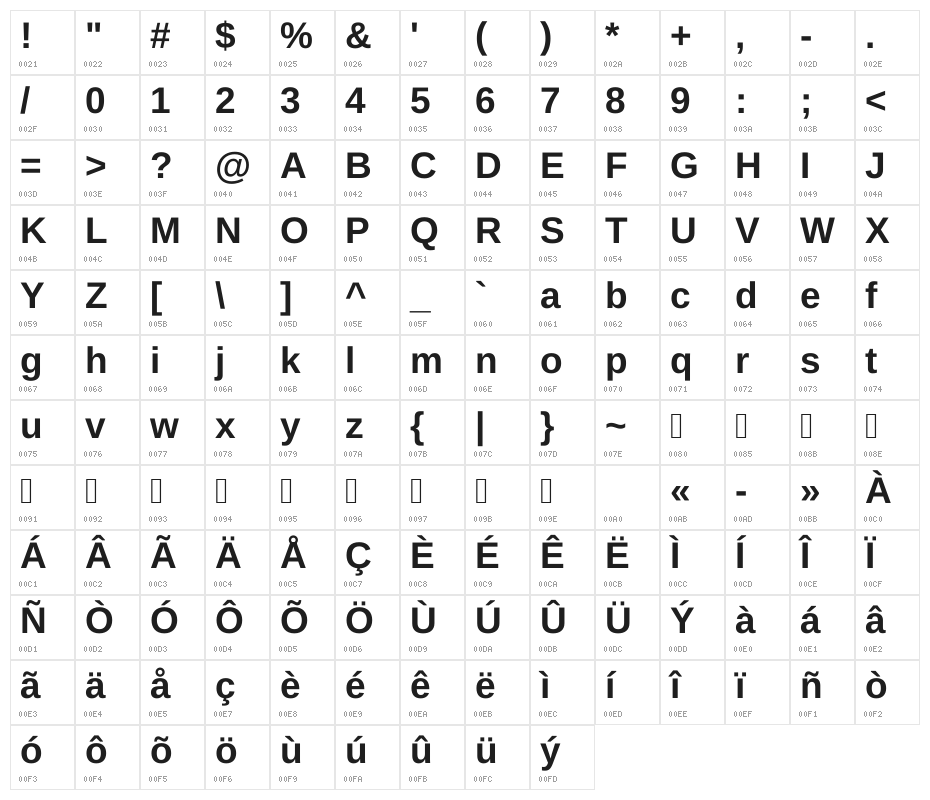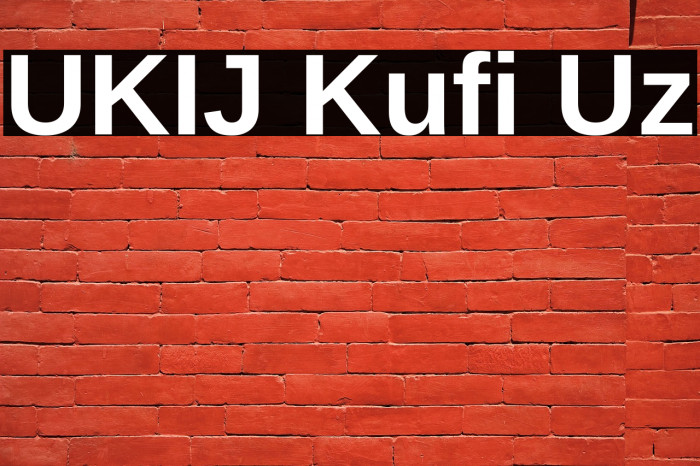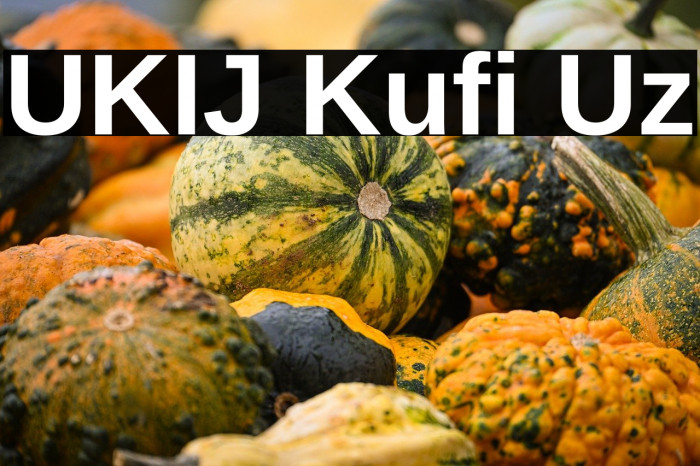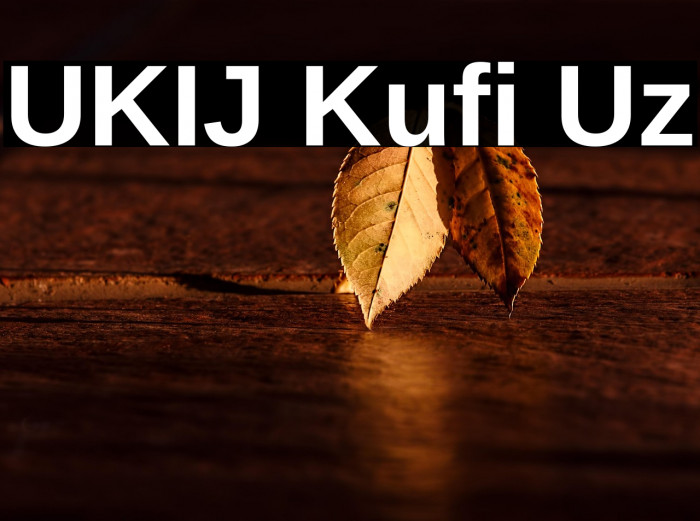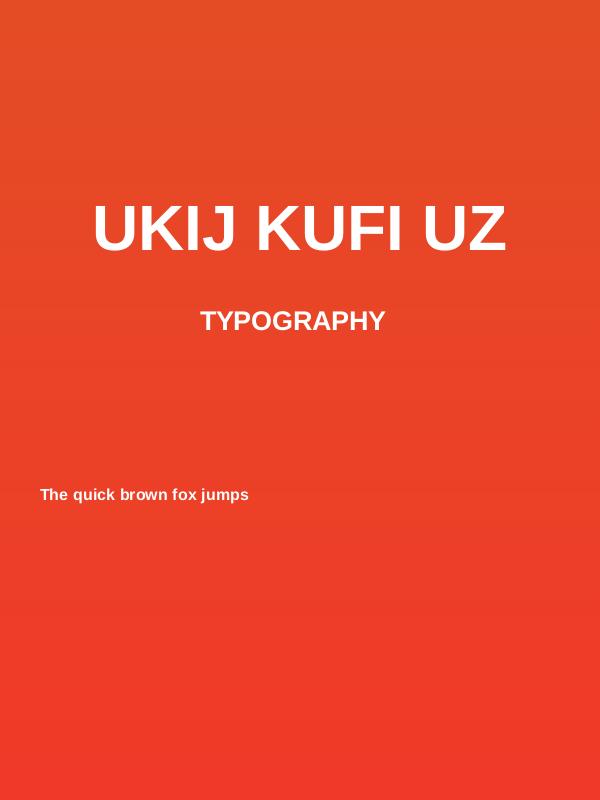
UKIJ Kufi Uz Font
UKIJ Kufi Uz Description
This font features a clean and modern sans-serif design with uniform stroke widths, providing a balanced and professional appearance. The characters are well-proportioned, with a slightly condensed width that enhances readability without sacrificing style. The uppercase letters are bold and assertive, while the lowercase letters maintain a consistent and harmonious flow. Numerals are clear and distinct, making them suitable for various applications. The special characters are well-integrated, ensuring versatility in design projects. Overall, this font exudes a contemporary and sophisticated vibe, making it ideal for both digital and print media.
| Proposed Projects | Ideal for corporate branding, website headers, editorial design, and advertising materials. |